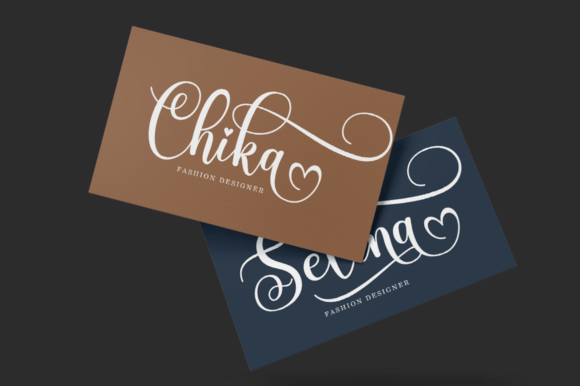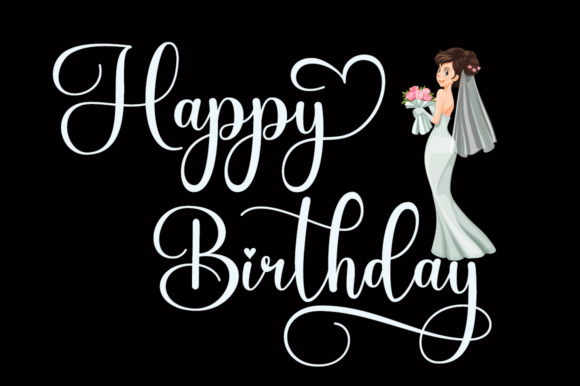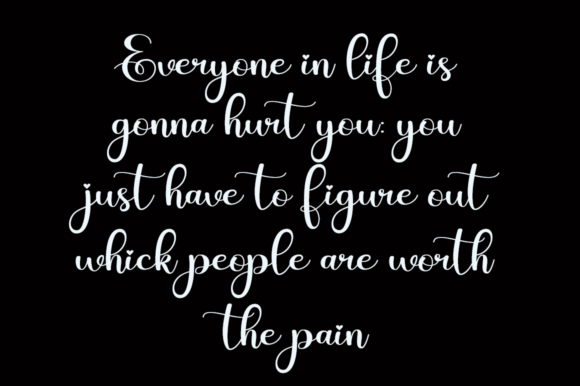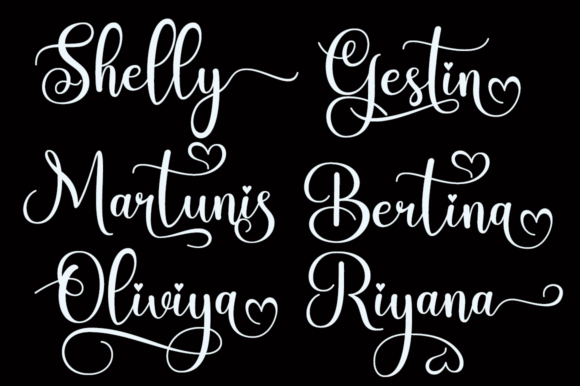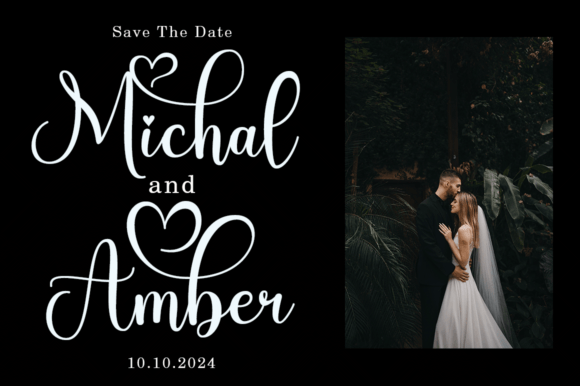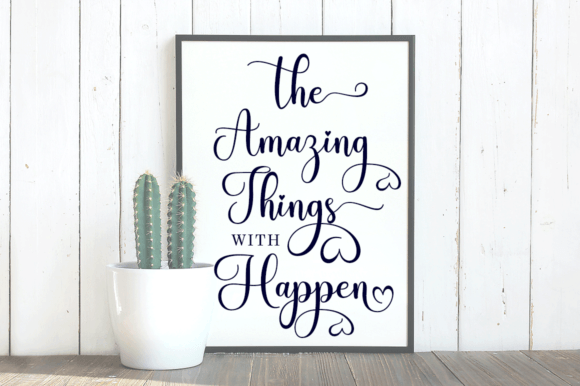
As you sit at your desk, staring at a blank page, the excitement and anticipation build up. You’re about to start a new project, and you know it’s going to be something special. You begin to brainstorm ideas, flipping through design inspiration, and searching for the perfect font to bring it all together. That’s when you stumble upon the Barbie Font – an elegant and flowing handwritten font that’s sure to make your project stand out.
The Barbie Font is designed to evoke a sense of class and sophistication, while still feeling fresh and contemporary. With its varied baselines, smooth lines, and gorgeous glyphs, this font is a designer’s dream come true. Whether you’re working on a logo, a poster, or a website, the Barbie Font is the perfect addition to take your project to the next level.
Barbie Font Key Features
- Unique Characteristics: The Barbie font features a distinctive, playful, and cursive design, making it perfect for children’s books, magazines, and other publications targeting a young audience.
Barbie Font Review
I recently had the chance to work with the Barbie Font, and I must say it’s an interesting choice for designers. One thing that works well is its playful and youthful aesthetic ✨. The font is perfect for creating vibrant and energetic designs, making it ideal for projects targeting a younger audience. Its bold and colorful style also adds a fun touch to digital content, like social media posts or advertisements.
However, there are some limitations to consider ⚠️. The font may be too loud and overwhelming for more serious or professional projects. Its simplicity can also make it feel somewhat generic or cookie-cutter. Additionally, the font’s high contrast may not be suitable for all types of content, particularly those with complex backgrounds or text overlays.
Overall, I think the Barbie Font is a great choice for designers who want to add a playful twist to their work ✨. While it may not be the best fit for every project, it’s a fun and versatile font that can add some much-needed personality to designs.
- Playful and youthful aesthetic
- Perfect for creating vibrant and energetic designs
- Bold and colorful style
- May be too loud and overwhelming for serious or professional projects
- Simplistic design may feel generic or cookie-cutter
- High contrast may not be suitable for all content
Barbie Font Practical Application Guide
The Barbie Font is ideal for designs targeting young girls and nostalgic adults. Use it for:
- Women’s fashion and beauty branding.
- Throwback or retro-themed designs.
For optimal results, pair the Barbie Font with bright colors and playful graphics.